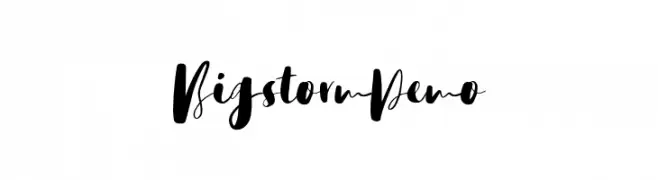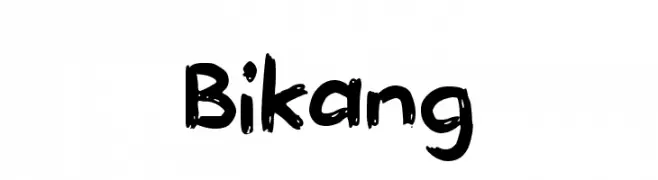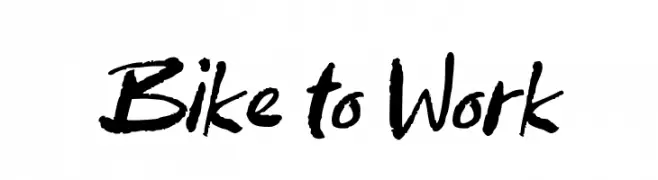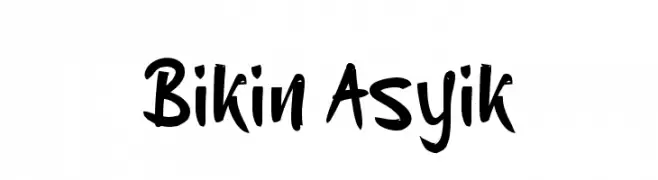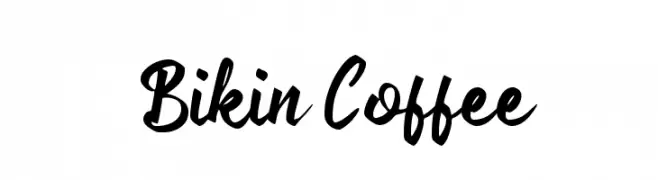
A bold, expressive handwritten script font with dynamic strokes.
A bold, textured script font with a playful, handcrafted style.
A bold, flowing script font with a dynamic, handwritten style.
A bold, playful font with whimsical loops and curves, ideal for creative designs.
A bold, hand-drawn font with an expressive, graffiti-like style.
A lively script font with a fluid, handwritten style and moderate stroke contrast.
A bold, brush-style handwritten font with dynamic strokes.
A bold, playful handwritten font with medium contrast and dynamic style.
A bold, cursive script font with smooth, flowing characters.